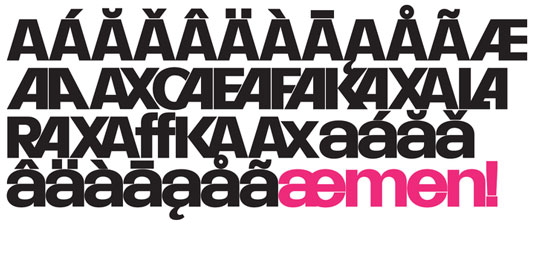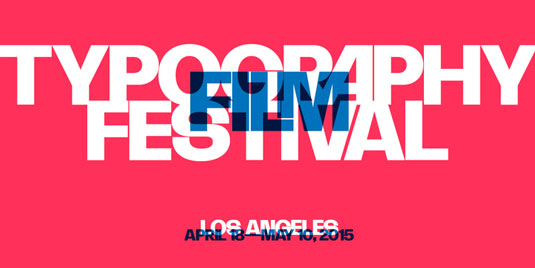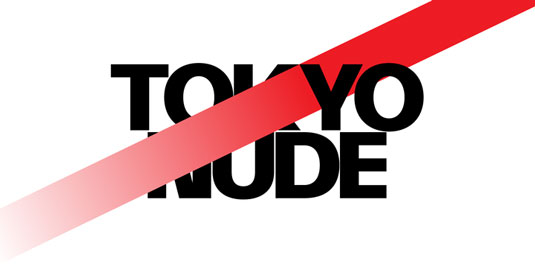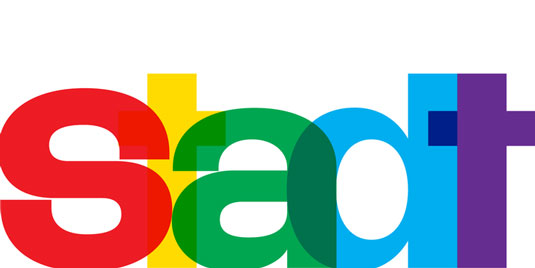
Font of the day: Stadt
Stadt by Michael Cina
Created by type designer Michael Cina, Stadt combines typographic aesthetics from the 1950s with a contemporary twist. "Stadt brought me back to my early days of font-making," Cina comments on MyFonts.
"When I had an idea, I'd run with it, burning through the work straight for a week or two. Stadt came to me at time during which a project was put on hold, so I concentrated on creating the bones of this typeface from morning to night. A month on, it's now available for you to use."